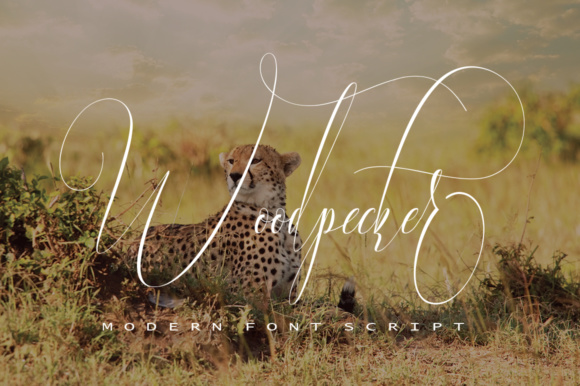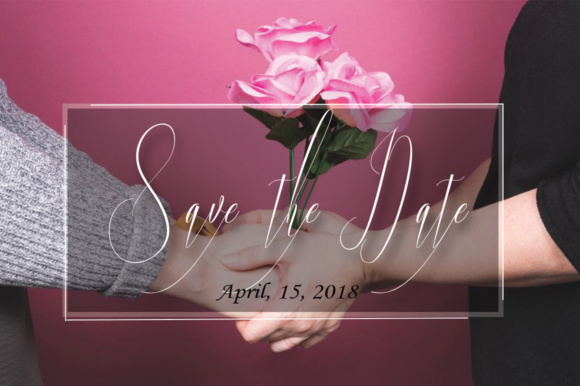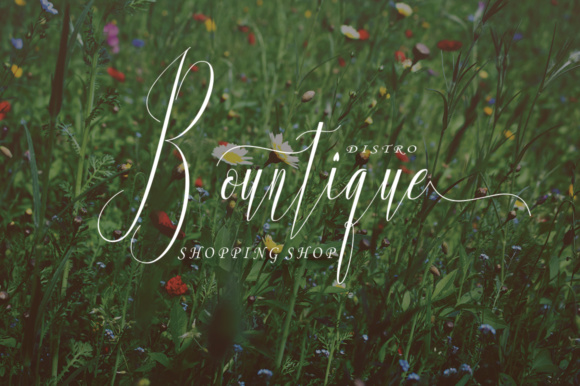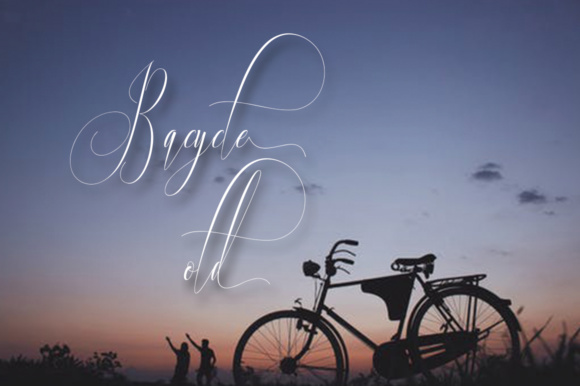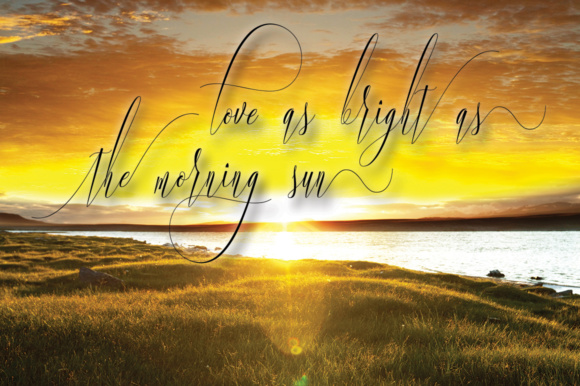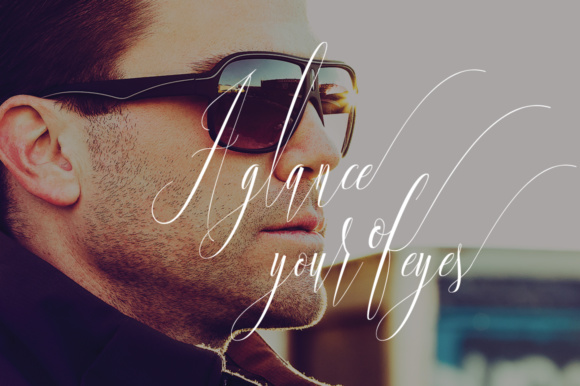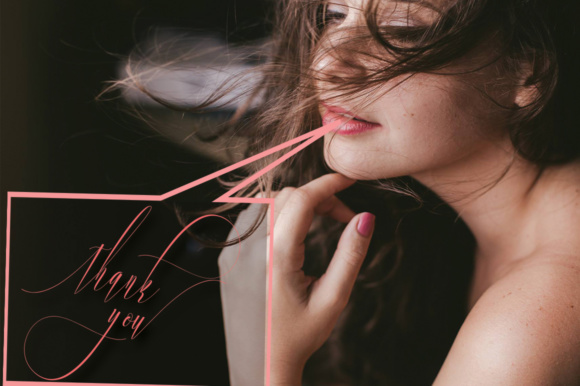
Woodpecker Font
About Woodpecker Font
Woodpecker is a modern, thin calligraphy font that is perfectly suited to elegant designs. This font was crafted through handwriting, and has a very distinct appeal.